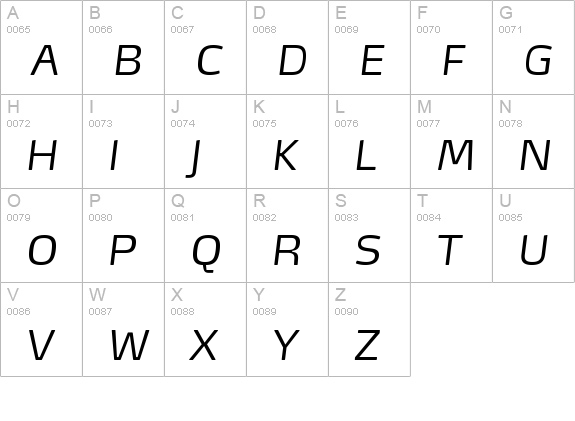
Max-LightItalicSC Font Details
Max-LightItalicSC is a sleek and modern font that exudes elegance and sophistication. Its slender and stylish italic design adds a touch of sophistication to any project, making it perfect for fashion magazines, luxury branding, and upscale events. The delicate curves and graceful lines of Max-LightItalicSC create a sense of refinement and class that will elevate your designs to the next level. This font is not only visually stunning but also incredibly versatile, making it suitable for a wide range of projects and applications. Whether you're designing a wedding invitation, a high-end brochure, or a chic logo, Max-LightItalicSC is sure to make a lasting impression. Best of all, Max-LightItalicSC is completely free to download at FontsMarket.com. This means you can add this exquisite font to your collection without breaking the bank. Don't miss out on the opportunity to enhance your designs with the timeless beauty of Max-LightItalicSC. Download it today and let your creativity shine!